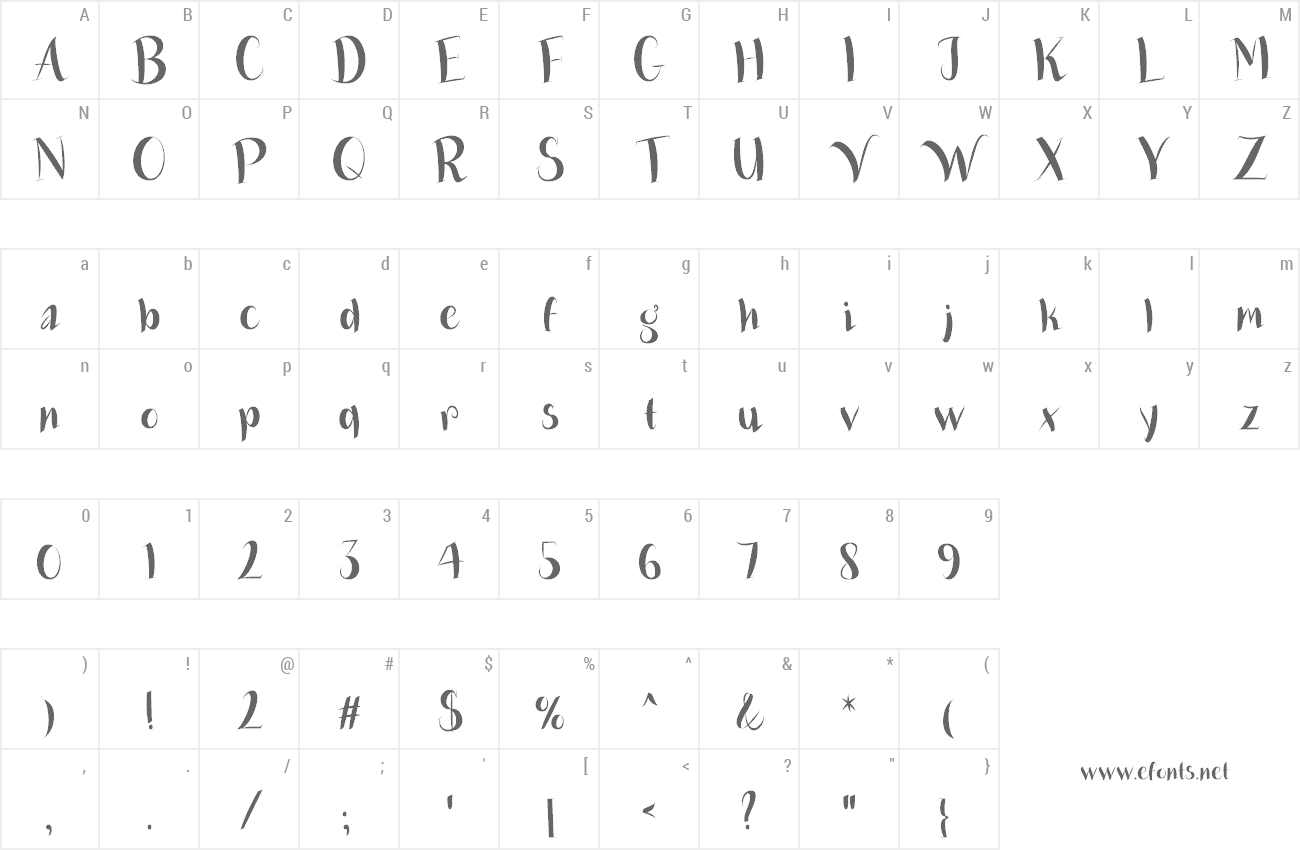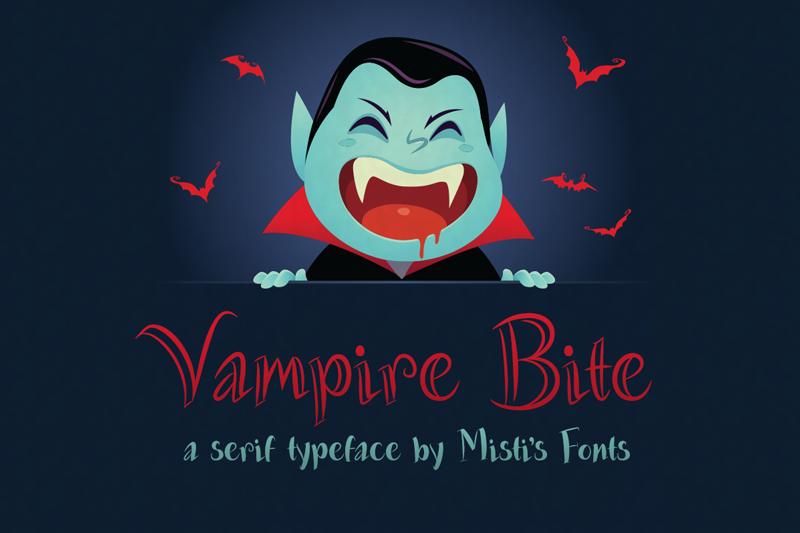
Vampire Bite is a playful display font with a spooky Halloween theme. Packed with personality, this typeface will help your designs stand out from the crowd. Terms Of Use and Commercial Licensing: https://mistifonts.com/vampire-bite/ |